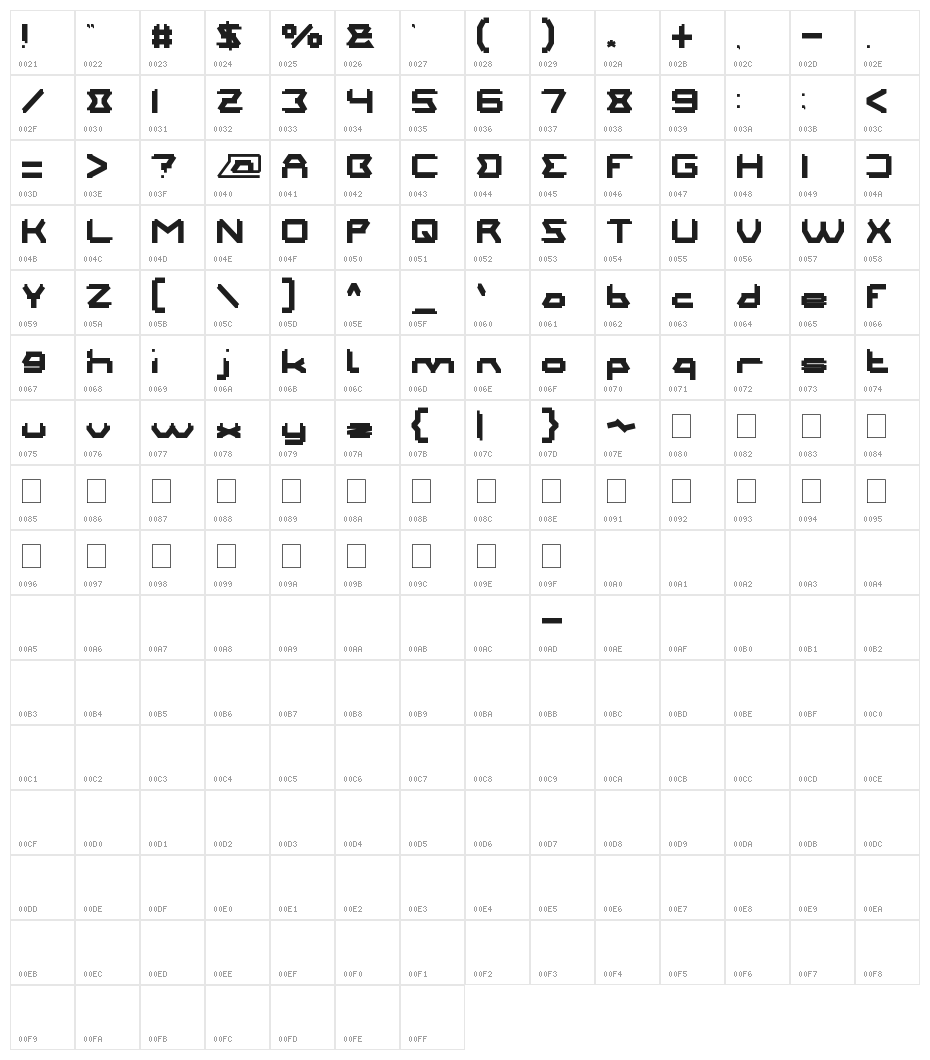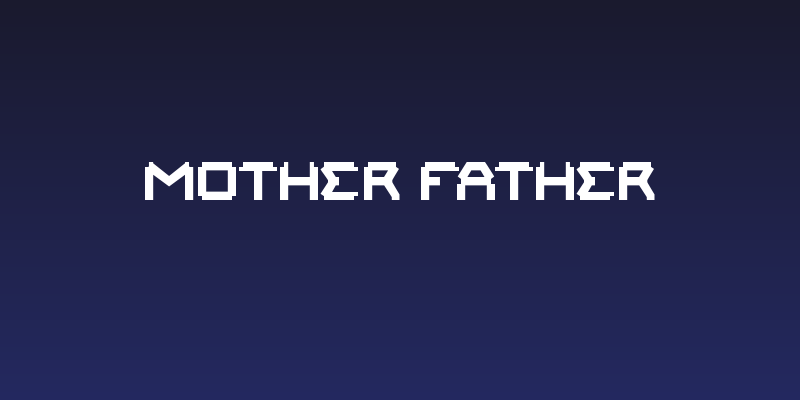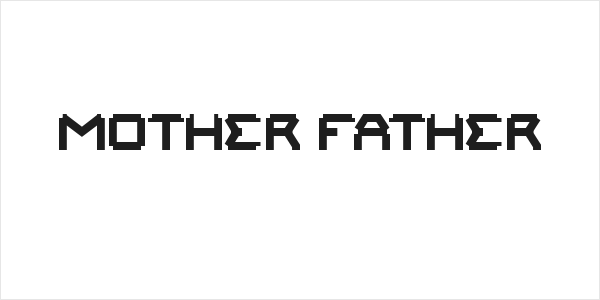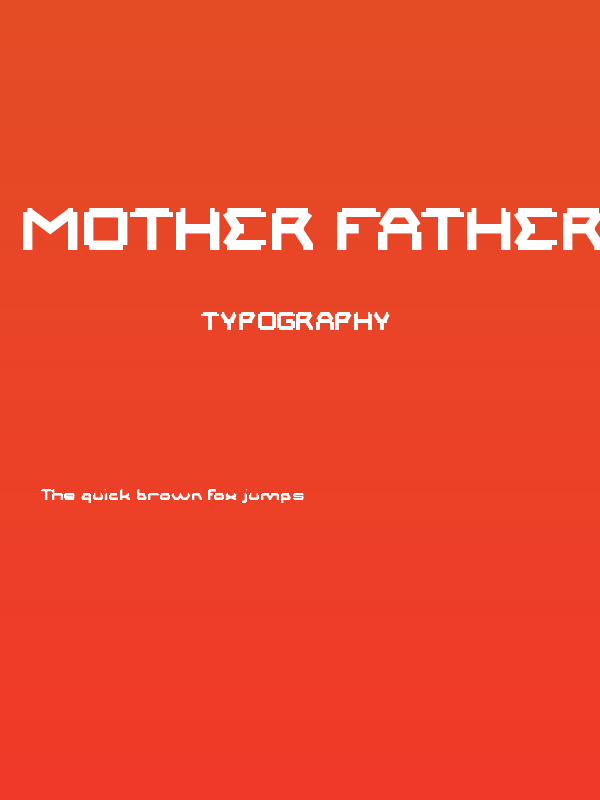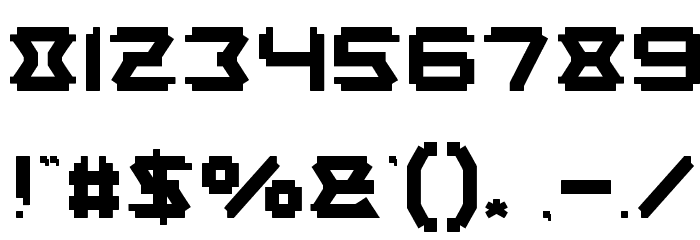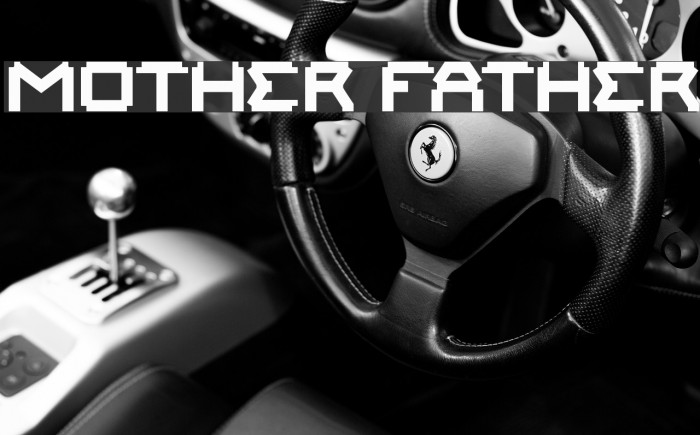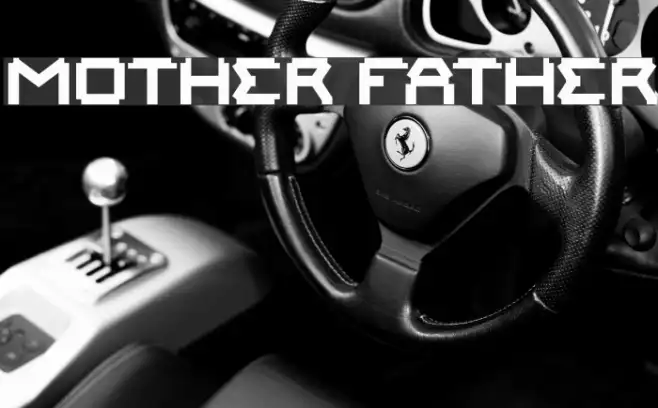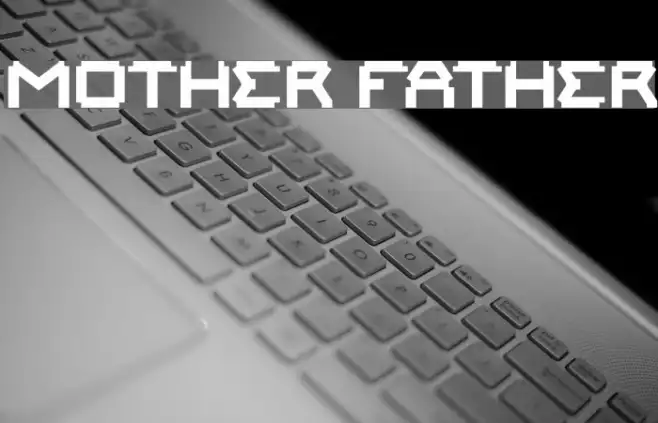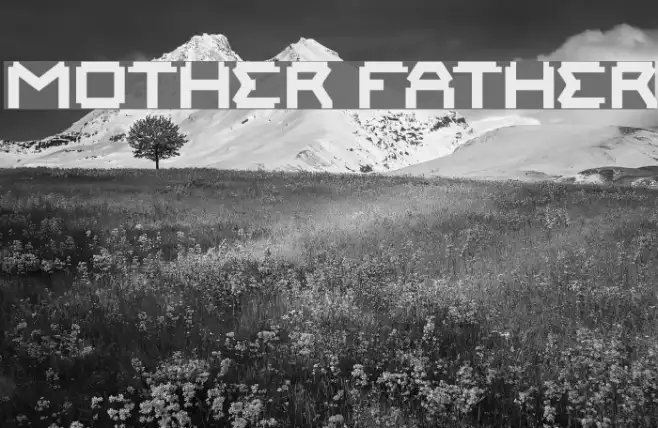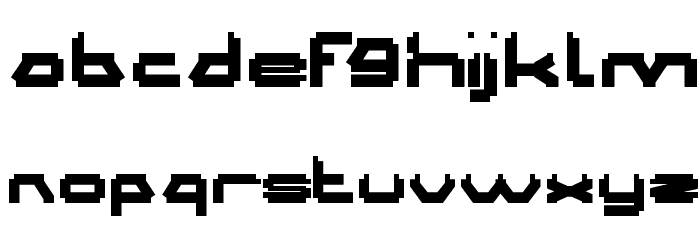
MOTHER FATHER Font
MOTHER FATHER Description
This font features a bold, geometric design with a pixelated, blocky appearance. The characters are constructed with sharp angles and straight lines, giving it a digital or retro video game aesthetic. The uppercase and lowercase letters maintain a consistent style, with the lowercase being slightly smaller but equally bold. Numbers and special characters follow the same design principles, ensuring uniformity across all glyphs. This font's unique style makes it stand out, ideal for projects that require a futuristic or tech-inspired look. Its distinct appearance is both eye-catching and memorable, making it suitable for creative and modern design applications.